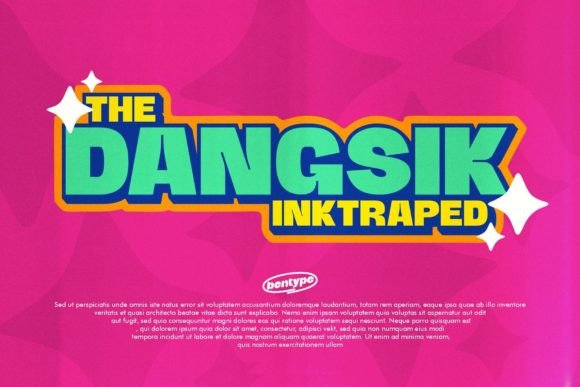
Dangsik Font: Elevate Your Design with a Cool and Bold Display Font
In the world of typography, fonts play a crucial role in conveying the tone and personality of a brand, product, or creative project. With the vast array of fonts available, finding the perfect one that embodies modernity and sophistication can be a daunting task. However, if you’re looking for a font that exudes confidence and style, look no further than Dangsik Font. In this article, we’ll explore the unique features of Dangsik, its design inspiration, and how it can elevate your design projects, from book covers to brand logos.
What is Dangsik Font?
Dangsik Font is a cool and bold display font designed to make a statement. Its bold structure is complemented by ink-traped details, which add a touch of sophistication and elegance to its overall composition. This font is perfect for designers who want to create modern and contemporary designs that demand attention.
Design Inspiration behind Dangsik Font
The design inspiration behind Dangsik Font is rooted in modern typography, with a focus on clean lines, bold structures, and attention to detail. The font’s creators aimed to craft a font that would be both visually striking and versatile, suitable for a wide range of design applications. The ink-traped details in Dangsik add a level of nuance and depth to its design, setting it apart from other bold fonts.
Key Features of Dangsik Font
- Bold Structure: Dangsik’s bold structure makes it perfect for headlines, titles, and other design elements that require emphasis.
- Ink-Trapped Details: The ink-trapped details in Dangsik add a touch of sophistication and elegance to its design, making it suitable for high-end brands and luxury products.
- Modern and Contemporary: Dangsik’s design is rooted in modern typography, making it perfect for designers who want to create contemporary and stylish designs.
- Versatile: Dangsik is a versatile font that can be used for a wide range of design applications, from book covers to brand logos, posters, and more.
How to Use Dangsik Font in Your Design Projects
Dangsik Font is an excellent choice for designers who want to create modern and contemporary designs. Here are some ways you can use Dangsik in your design projects:
- Book Covers: Dangsik’s bold structure and ink-trapped details make it perfect for book covers, especially for fiction and non-fiction books that require a modern and eye-catching design.
- Brand Logos: Dangsik’s unique design makes it an excellent choice for brand logos, especially for companies that want to convey a sense of modernity and sophistication.
- Posters and Flyers: Dangsik’s bold structure and ink-trapped details make it perfect for posters and flyers that require a modern and attention-grabbing design.
- Digital Media: Dangsik can also be used in digital media, such as social media graphics, website headers, and more.
Tips for Pairing Dangsik Font with Other Design Elements
To get the most out of Dangsik Font, it’s essential to pair it with other design elements that complement its modern and bold design. Here are some tips for pairing Dangsik with other design elements:
- Contrasting Colors: Pair Dangsik with contrasting colors to create a visually striking design. For example, you can pair Dangsik with bright and bold colors to create a modern and eye-catching design.
- Simple Backgrounds: Use simple backgrounds to let Dangsik take center stage. A simple background can help to highlight Dangsik’s bold structure and ink-trapped details.
- Minimalist Design: Pair Dangsik with minimalist design elements to create a clean and modern design. For example, you can pair Dangsik with simple shapes and lines to create a stylish and sophisticated design.
| Font Name | Dangsik Font |
| Author | Benawa Studio |
In conclusion, Dangsik Font is a cool and bold display font that is perfect for designers who want to create modern and contemporary designs. Its bold structure, ink-trapped details, and versatility make it an excellent choice for a wide range of design applications, from book covers to brand logos. By pairing Dangsik with contrasting colors, simple backgrounds, and minimalist design elements, you can create visually striking designs that demand attention.
- What is Dangsik Font? Dangsik Font is a cool and bold display font designed for modern and contemporary designs.
- What are the key features of Dangsik Font? The key features of Dangsik Font include its bold structure, ink-trapped details, and versatility.
- How can I use Dangsik Font in my design projects? You can use Dangsik Font in a wide range of design applications, including book covers, brand logos, posters, and more.